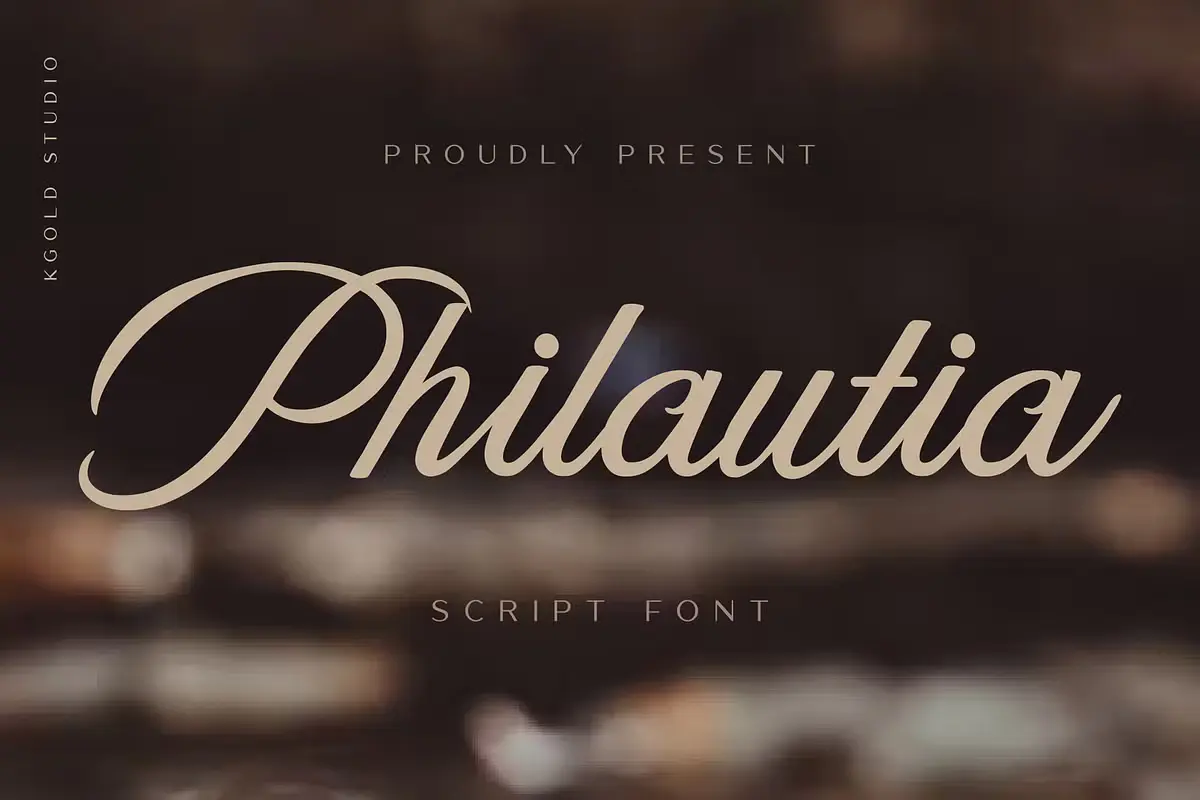
Philautia Font: Elegant Script Typeface
Typography plays a crucial role in design, setting the tone for branding, invitations, and digital content. If you’re looking for a script font that exudes elegance and charm, Philautia Font is an excellent choice. Combining the beauty of classic handwritten fonts with modern versatility, this typeface is ideal for designers seeking a sophisticated yet inviting style.
Philautia Script Font
What is Philautia Font?
Philautia Font is a script typeface that mimics traditional handwriting, featuring soft, flowing lines and intricate detailing. This font captures the elegance of calligraphy Fonts, making it perfect for projects that require a timeless and refined aesthetic. Whether you’re designing wedding invitations, brand logos, or editorial layouts, Philautia adds a touch of sophistication and warmth.
Key Features of Philautia Font
1. Authentic Handwritten Style
Philautia Font embodies the charm of classic handwriting, with carefully crafted strokes and a fluid, organic appearance. This makes it a great choice for romantic or vintage-themed projects.
2. Versatile for Multiple Uses
From wedding invitations to professional branding, Philautia Font adapts well to different applications. It maintains clarity while providing an artistic flair, making it a suitable option for both digital and print designs.
3. Elegant Ligatures and Alternates
One of the standout features of Philautia Font is its beautiful ligatures and alternates, which enhance the flow of text and create a more authentic handwritten effect. These details allow designers to customize their work for a unique, polished look.
4. Perfect for Formal and Romantic Themes
Philautia Font is commonly used for romantic themes such as wedding stationery, love letters, and special occasion branding. However, its sophisticated and professional appeal also makes it ideal for high-end branding, including fashion and luxury product packaging.
Why Choose Philautia Font?
1. Enhances Readability with Elegance
Unlike some script fonts that may be difficult to read, Philautia maintains legibility while exuding elegance. Its balanced stroke weight ensures readability across different mediums.
How to Use Philautia Font in Design
- Wedding Invitations – Add a touch of romance with its flowing script and elegant ligatures.
- Logos & Branding – Perfect for brands that want to convey sophistication and artisanal quality.
- Social Media Graphics – Use it in quotes, promotional posts, and Instagram stories for a stylish appeal.
- Book Covers & Editorial Design – Give books and magazines a refined, classic aesthetic.
Conclusion
Philautia Font is an excellent choice for anyone looking for a classic yet modern script font. With its handwritten charm, beautiful alternates, and versatile use cases, it stands out as a go-to typeface for elegant designs. Whether you’re working on a formal project or a romantic theme, Philautia Font brings timeless beauty to your creations.